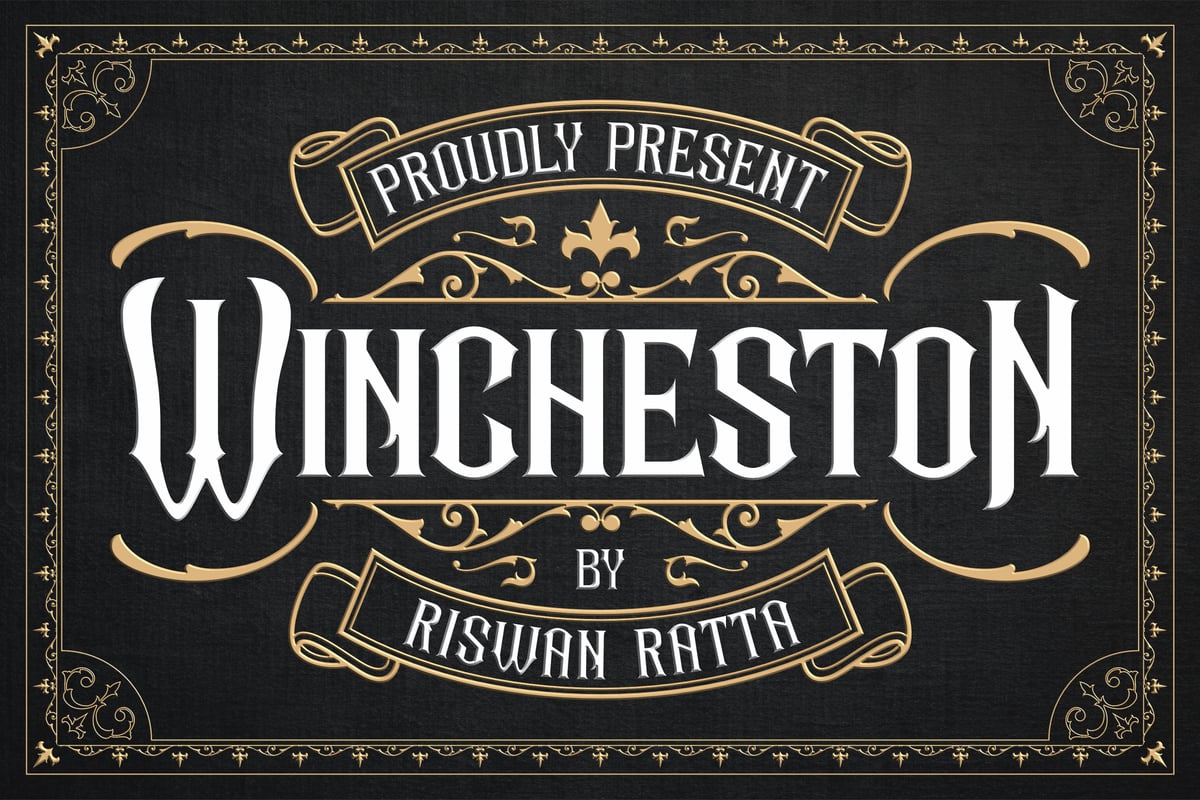
Wincheston Font
Bold Victorian elegance meets modern luxury — Wincheston is a vintage serif font built to make a statement.
Wincheston is a decorative vintage serif typeface carefully crafted to bring together the timeless elegance of the Victorian era with a sharp, refined, and luxurious contemporary aesthetic. Designed with close attention to detail, it features distinctive serif shapes, elegant letterforms, and an ornamental character that instantly adds sophisticated vintage personality to any design.
Inspired by classic Victorian typography, vintage signage, traditional engraving, and old-world luxury, Wincheston is built to feel both historic and modern. Its bold yet elegant construction makes it an excellent choice for projects that demand a strong visual identity while maintaining a premium, polished feel.
Perfect for:
- Vintage and retro branding
- Luxury logo design
- Victorian-inspired layouts
- Editorial and magazine designs
- Product packaging and labels
- Restaurant and café branding
- Signage and storefront designs
- Posters and advertisements
- T-shirt and apparel designs
- Business cards and stationery
- Wedding invitations and event designs
- Badges, emblems, and nameplates
- Book covers and title designs
- Social media graphics
- Merchandise and promotional materials
Wincheston performs beautifully across both digital and print projects, making it an ideal tool for graphic designers, branding specialists, packaging designers, small business owners, and creative professionals seeking a distinctive vintage typeface.
Wincheston is more than a vintage serif font — it is a statement of timeless typography, refined craftsmanship, and modern luxury. Use it to create designs that feel established, elegant, and effortlessly sophisticated.